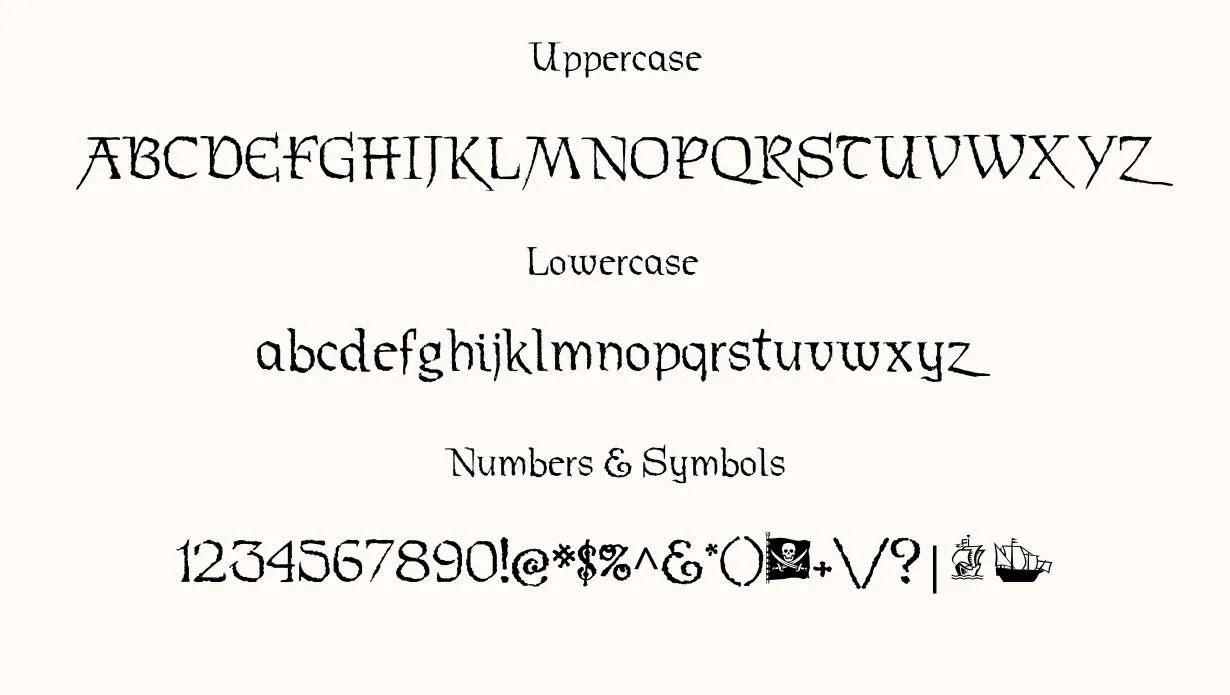
Stoertebeker font stands out with its bold and captivating style, making it an excellent choice for headlines, banners, or logos. Its edgy appearance brings a modern and unique visual impact to text, often found in creative and contemporary branding.